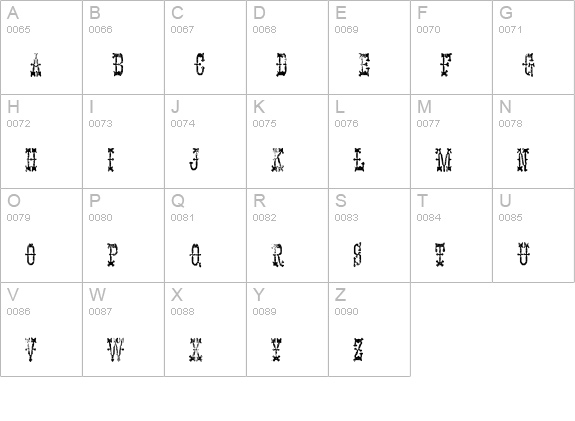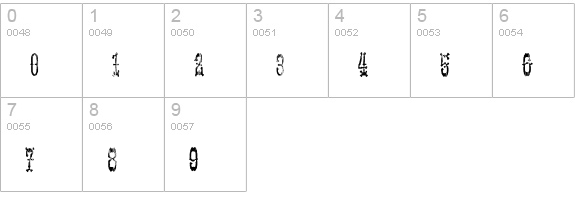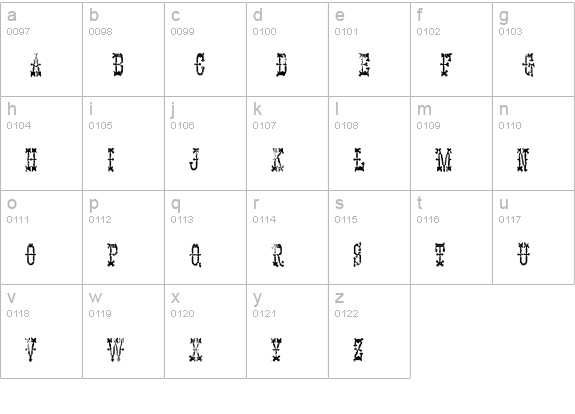
PANHEAD Font Details
PANHEAD font is a striking and stylish typeface that exudes a sense of modernity and sophistication. Its bold and sharp letterforms make it perfect for creating eye-catching headlines, logos, and branding materials. The font's sleek design is sure to make a statement and capture the attention of your audience. What makes PANHEAD font even more appealing is that it is available for free download at FontsMarket.com. This means that you can easily access this versatile typeface without any cost, making it a valuable addition to your design toolkit. Whether you're working on a professional project or a personal creative endeavor, PANHEAD font is a fantastic choice that will elevate your designs to the next level. Download PANHEAD font today and unleash your creativity with this exceptional typeface.